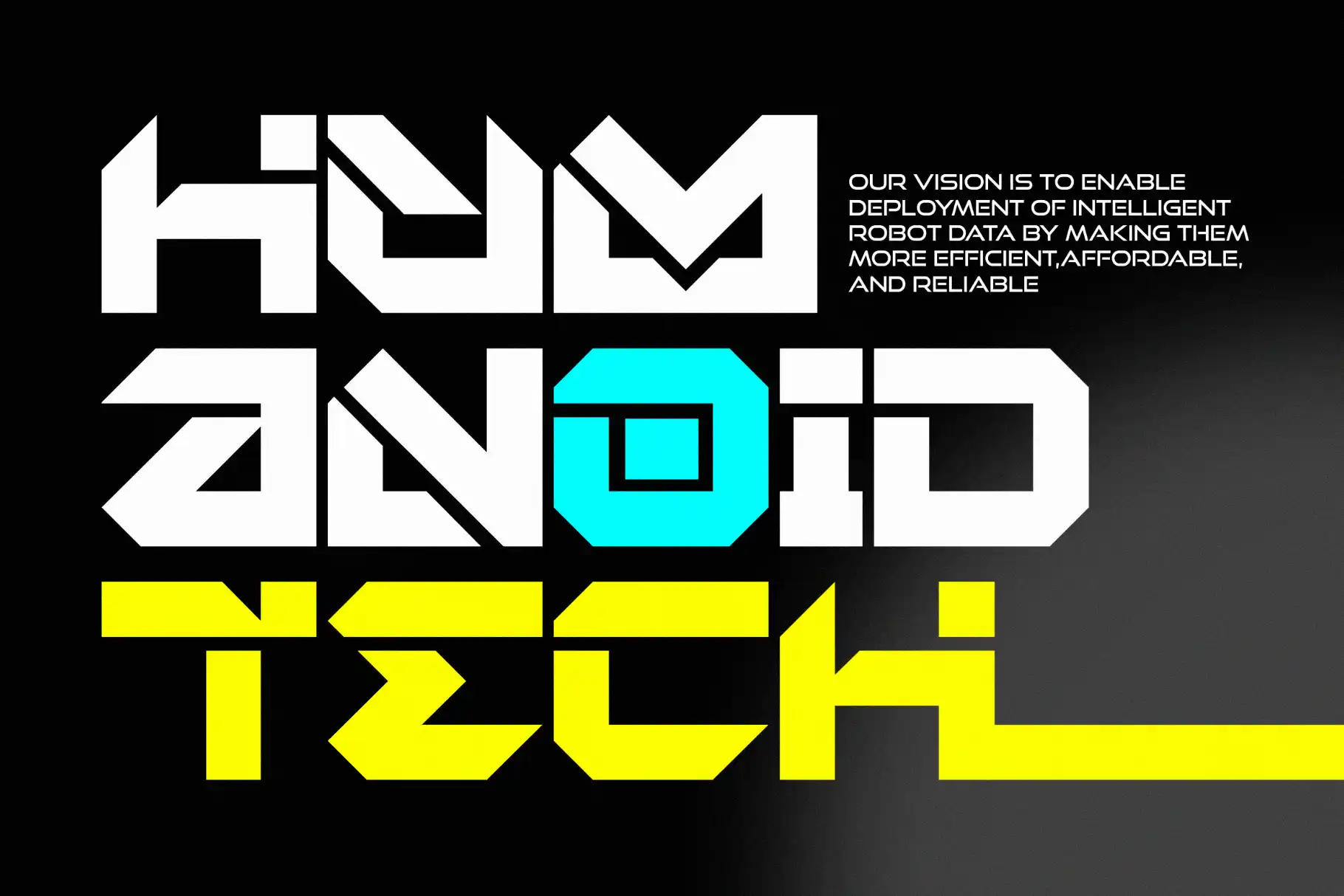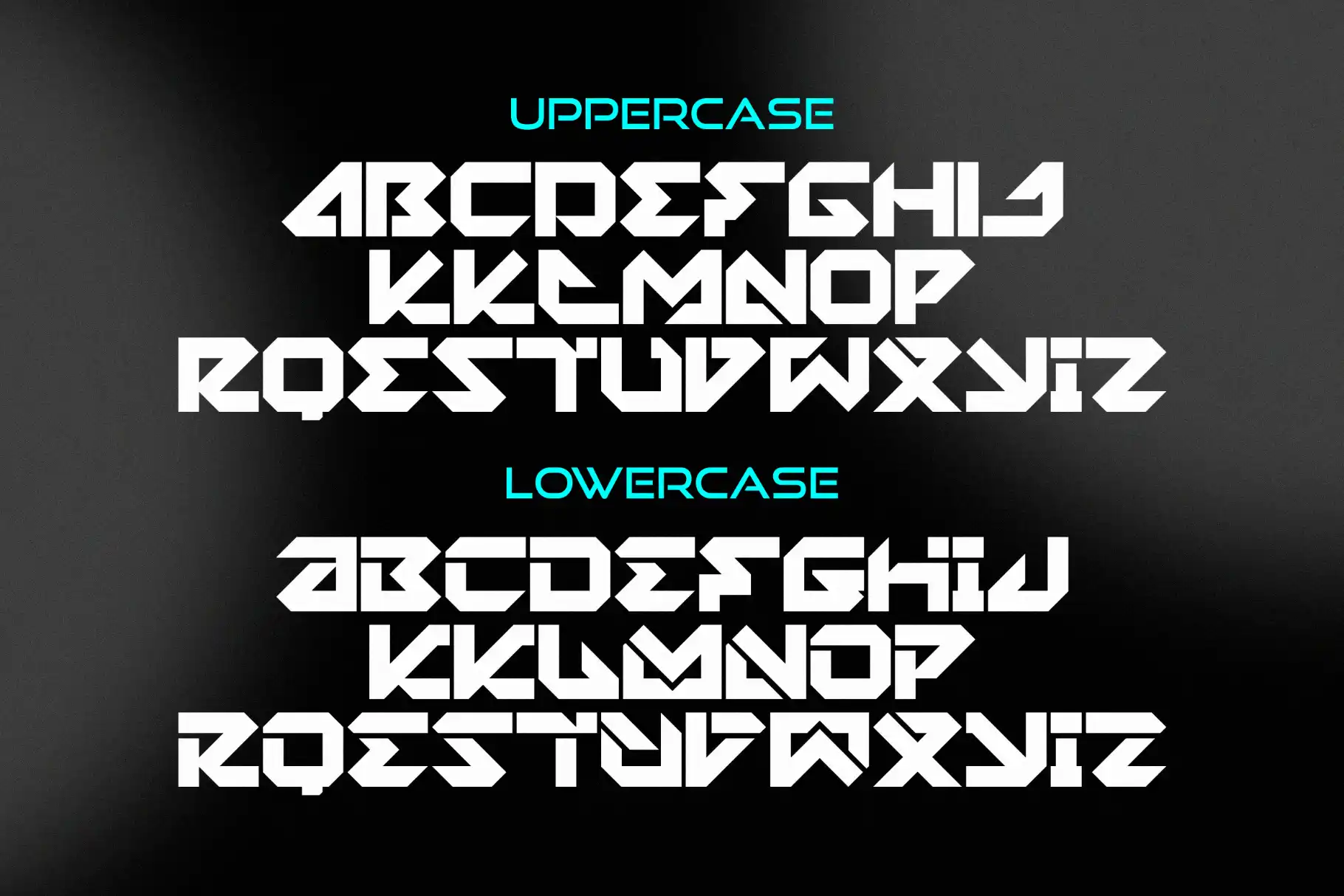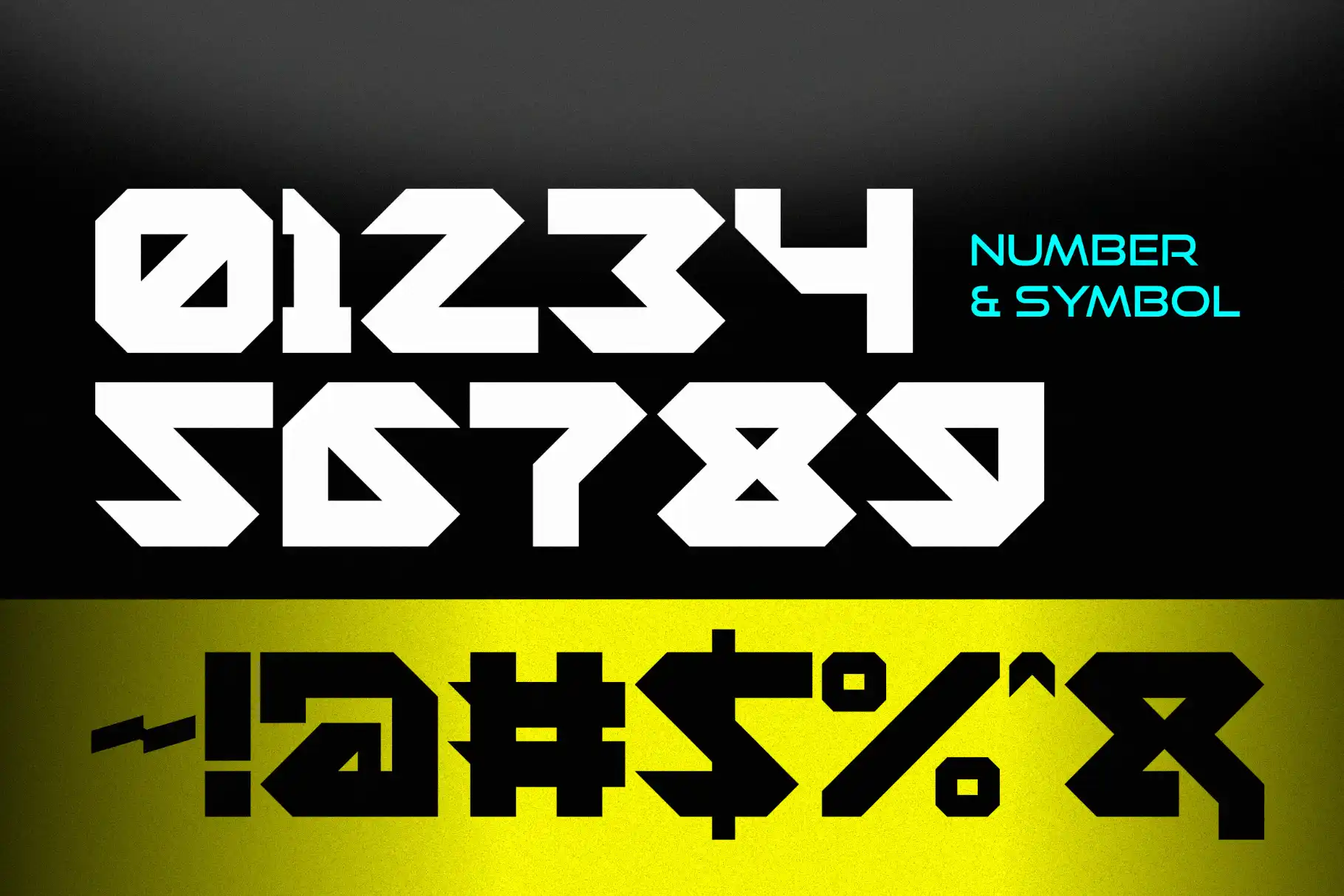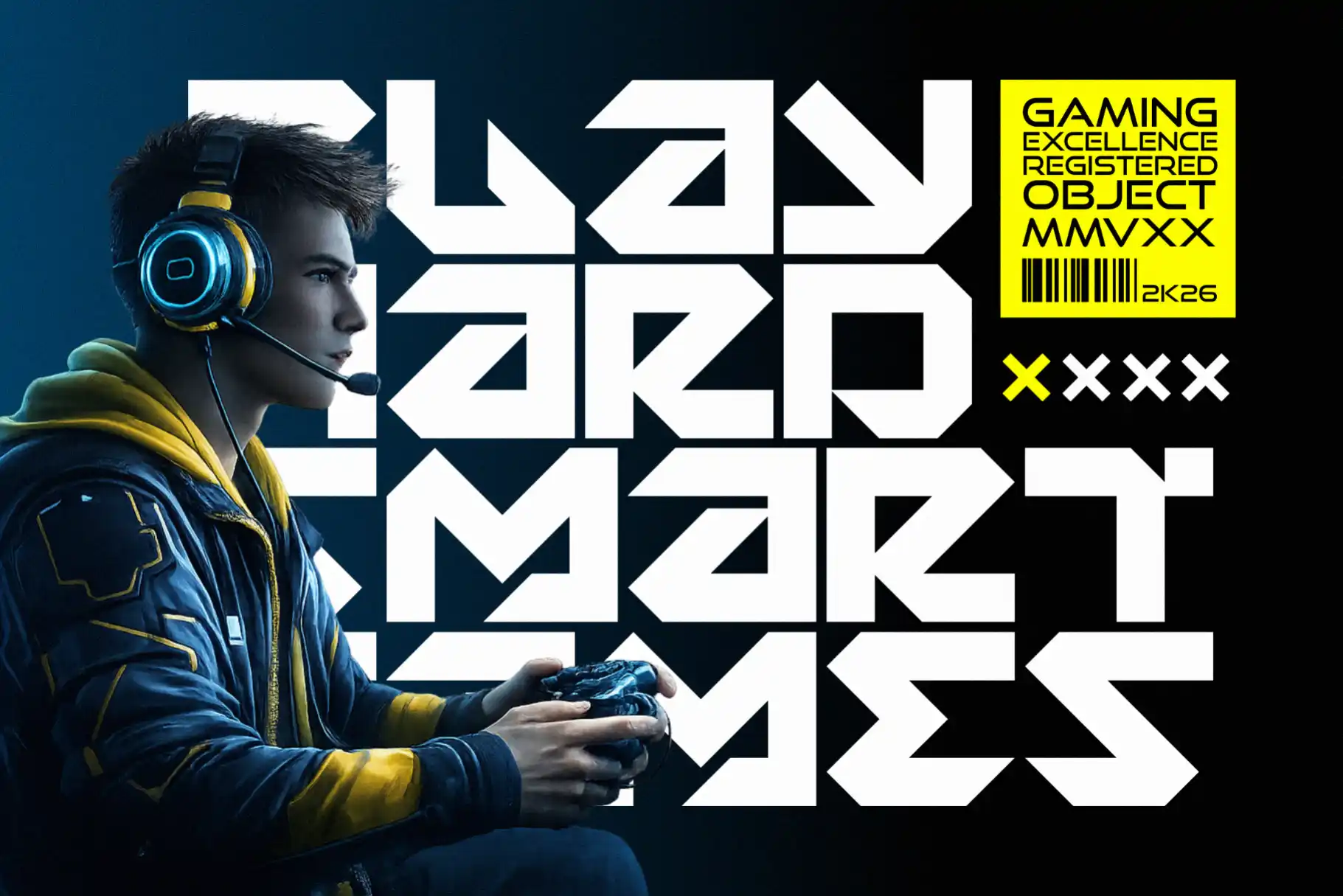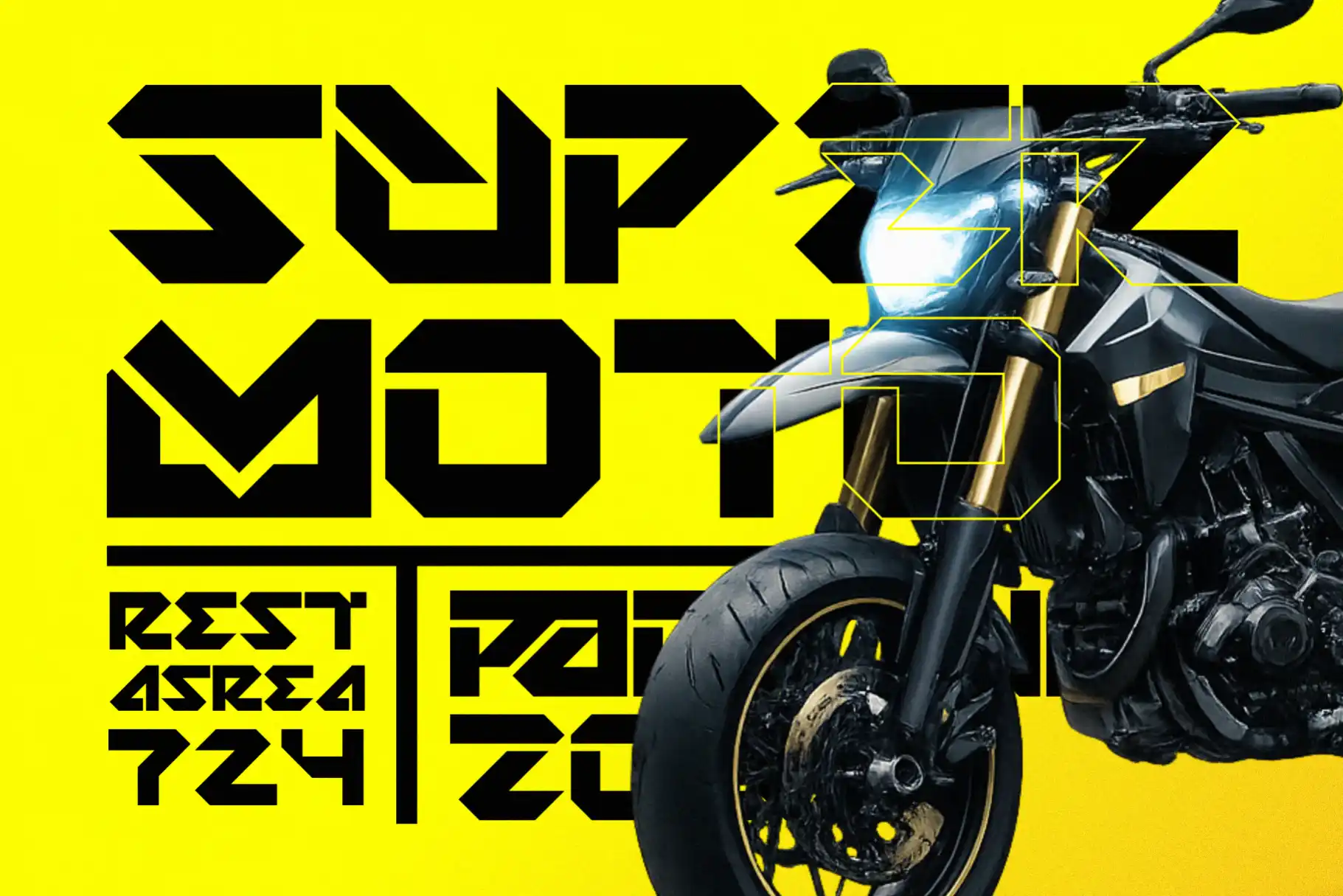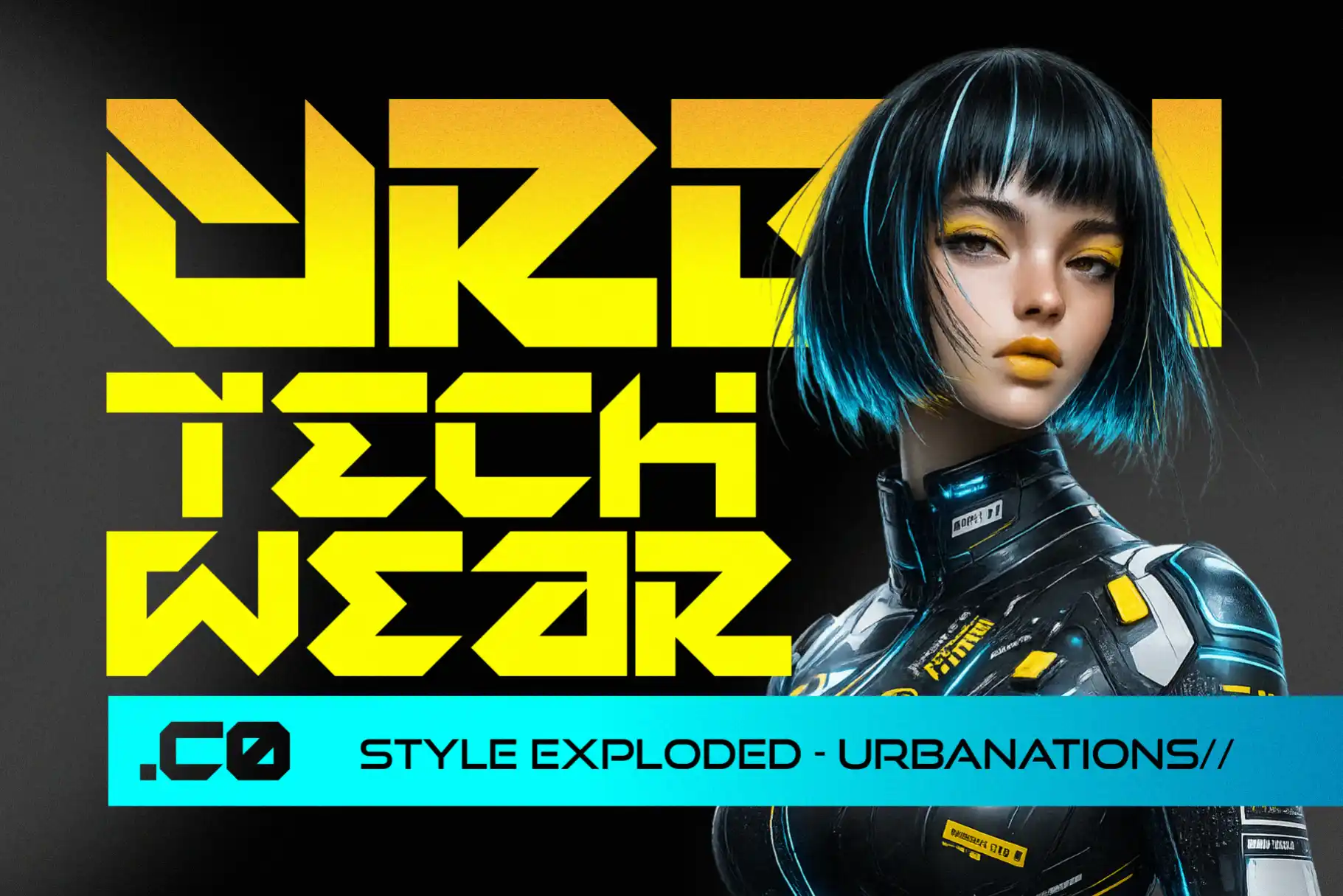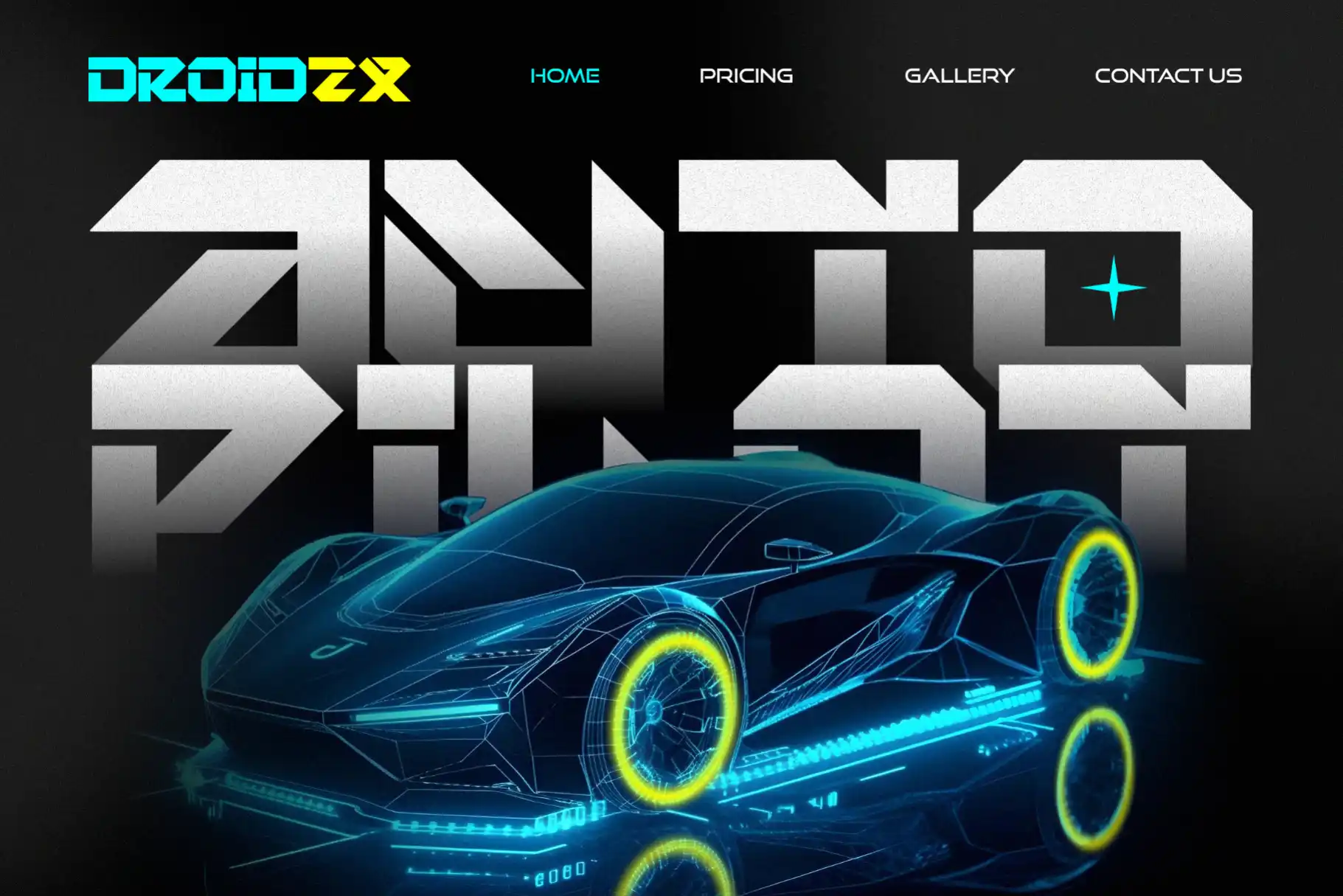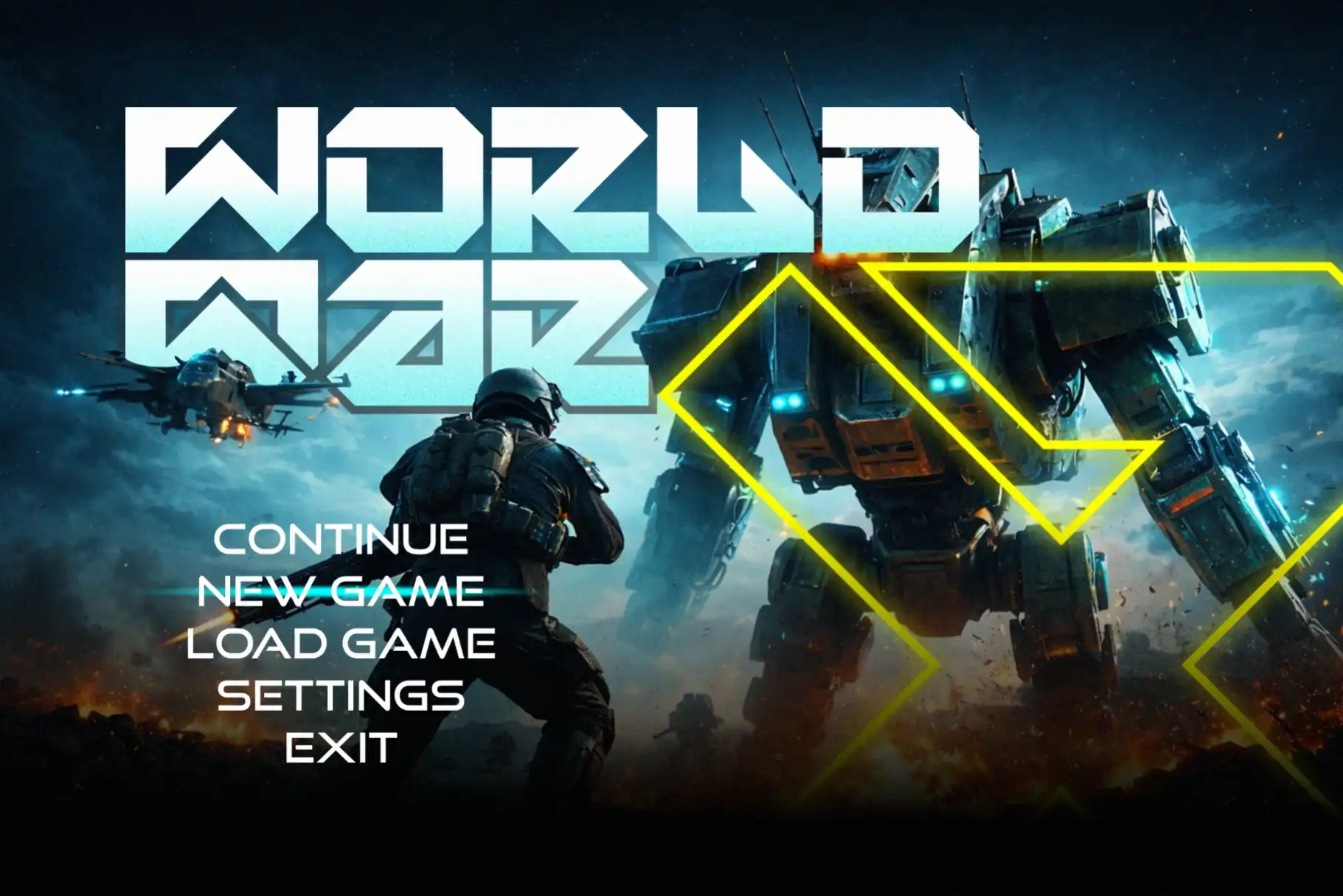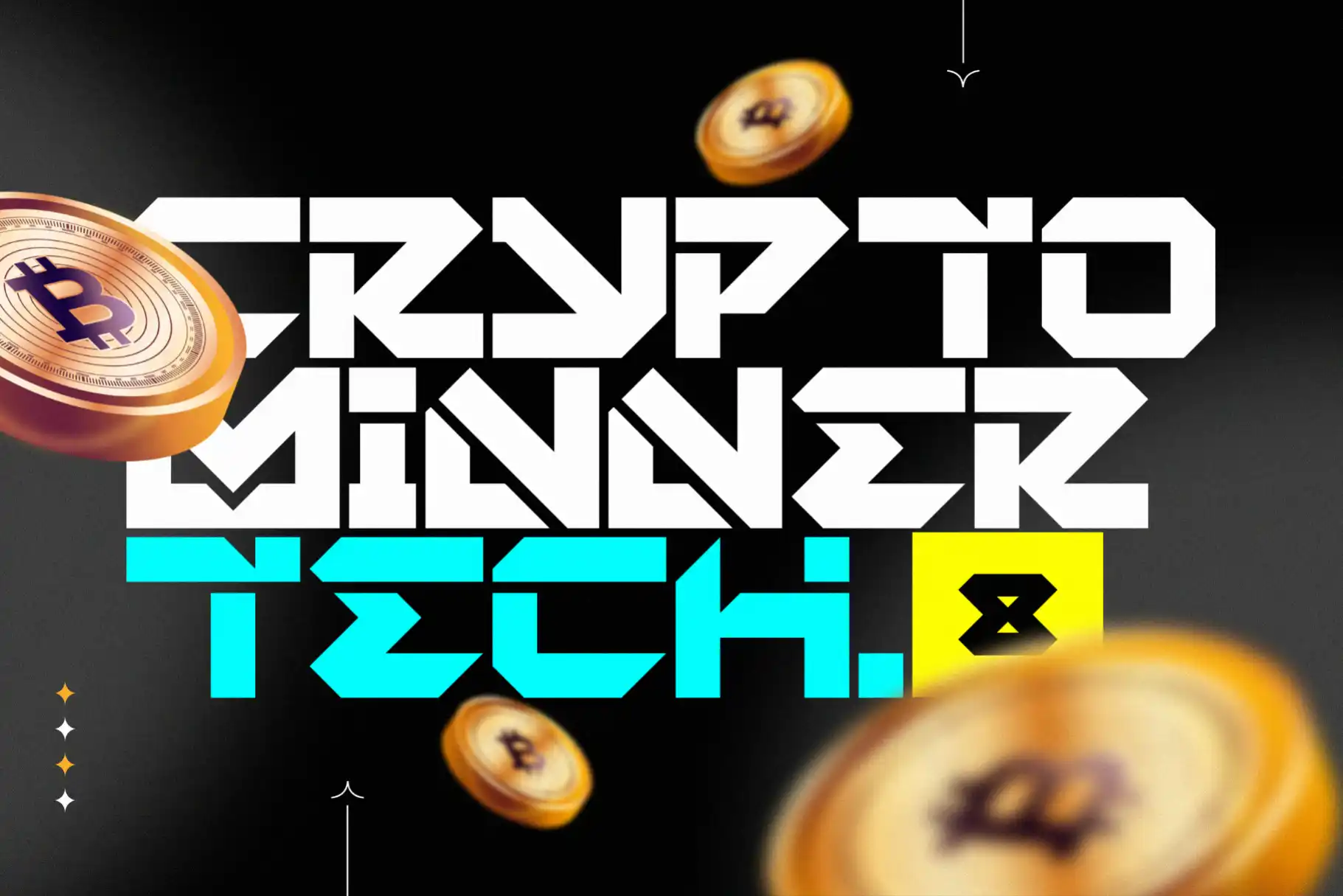
Martin Gaming – Futuristic Techno Font for Esports and Digital Design
Typography is at the core of modern digital branding, especially in industries like gaming and technology. Martin Gaming – Futuristic Techno Font is crafted for designers who want to create bold, high-tech visuals with a strong identity. This futuristic techno font delivers sharp geometry, digital-inspired forms, and a modern aesthetic that perfectly fits esports, gaming logos, and cutting-edge branding projects.
This futuristic techno font is designed to capture the energy of the digital world. Whether you’re building a gaming brand, designing a YouTube thumbnail, or crafting a cyber-style poster, Martin Gaming ensures your visuals stand out with clarity and impact.
Futuristic Techno Font for Gaming and Esports
Martin Gaming is a futuristic techno font built with precision and energy. Its angular shapes and modern structure create a strong visual presence that resonates with gaming culture and esports communities. Designers looking to create immersive digital experiences will find this font highly effective for branding and UI visuals.
With its bold appearance, this futuristic techno font works perfectly for esports team logos, gaming overlays, and tournament posters. It communicates speed, innovation, and competitiveness—everything a modern gaming brand needs.
Key Features of Martin Gaming – Futuristic Techno Font
Here are the powerful features that make Martin Gaming a must-have futuristic techno font for designers:
- Multilingual Support: Designed for global design projects
- Italic Version Included: Adds dynamic motion and futuristic energy
- Modern Techno Style: Perfect for gaming, digital branding, and sci-fi visuals
- High Readability: Clear and strong even at large display sizes
Why Designers Love This Futuristic Techno Font
Designers love Martin Gaming because it balances style and usability. Many fonts in the techno category sacrifice readability, but this futuristic techno font maintains clarity while still delivering a strong visual identity.
Here’s why it stands out:
- Bold Digital Identity: Instantly gives projects a futuristic and modern feel
- Versatile Usage: Works for gaming, tech startups, posters, and branding
- Creative Flexibility: Regular and italic styles allow dynamic compositions
Futuristic Techno Font for Logos and Branding
Creating a memorable logo requires a typeface that communicates innovation. Martin Gaming is the ideal futuristic techno font for logos in gaming, esports, and tech industries. Its geometric design creates a strong and recognizable identity.
Futuristic Techno Font for Posters and Digital Media
Posters and digital content require attention-grabbing typography. Martin Gaming excels as a futuristic techno font for movie posters, esports banners, and social media visuals. Its sharp lines and futuristic vibe make every headline look bold and modern.
Using Futuristic Techno Font in Esports and UI Design
Modern UI and esports visuals demand a strong digital aesthetic. Martin Gaming fits perfectly into this environment as a futuristic techno font. Use it for dashboards, overlays, streaming graphics, and app interfaces.
- Best Uses: Gaming, Esports, Logos, Posters, Digital Branding, UI Design